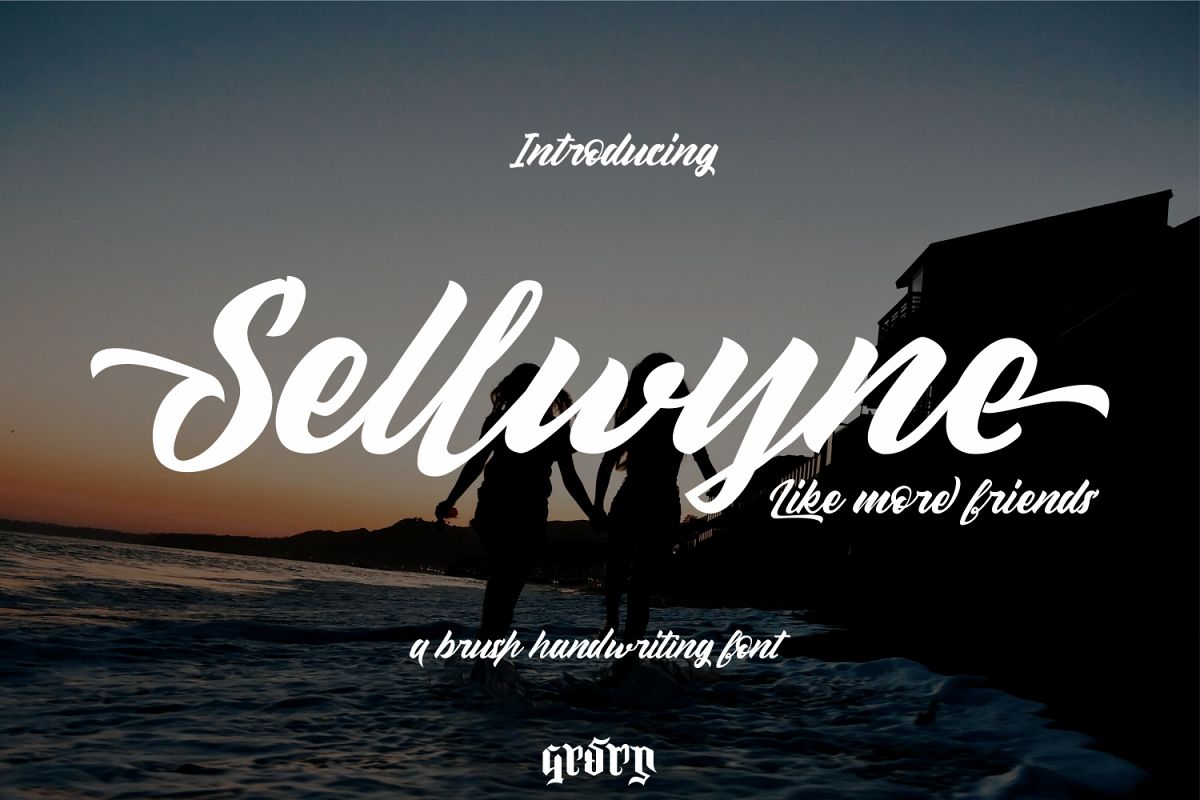
Sellwyne Script
Sellwyne Script is inspired by the name Selyn (best friend). You can create handlettering easily using this font.
In addition, this font is very suitable for design t-shirts, branding projects, wedding designs, social media posts, advertisements, product packaging, product, and logo.
designs, labels, photography, watermark, invitation, stationery and any
projects that need handwriting taste.
- Include Stylistic Set & Alternates
- Ligature